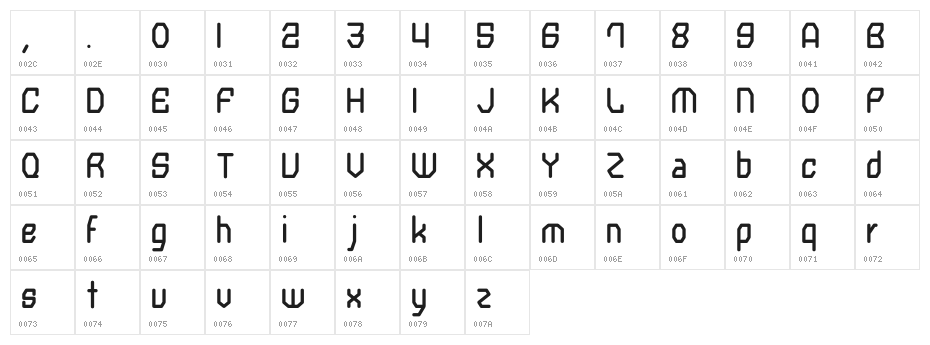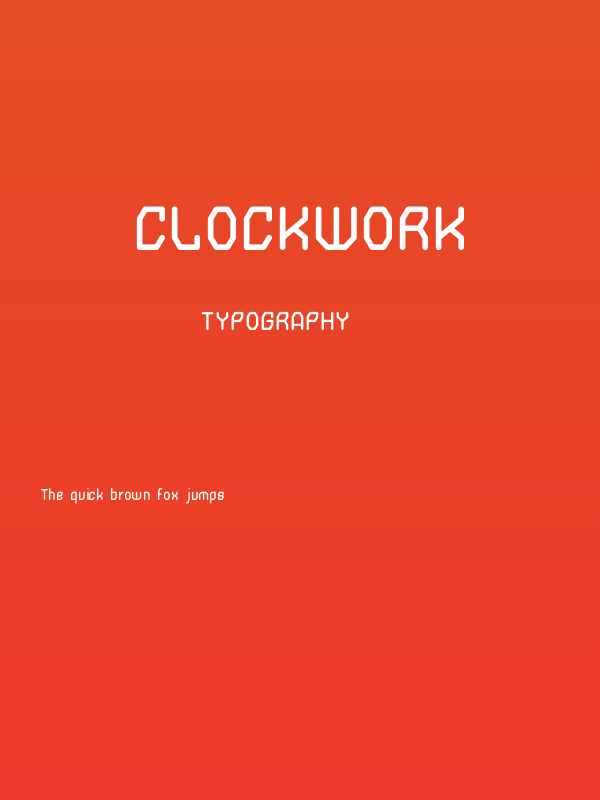
Clockwork Font
Clockwork Description
This font features a geometric and mechanical design, characterized by its bold and uniform stroke width. The characters are constructed with straight lines and sharp angles, giving it a futuristic and industrial appearance. The uppercase and lowercase letters maintain a consistent style, with rounded corners that soften the overall look. The numerals and special characters follow the same design principles, ensuring a cohesive appearance across all glyphs. The font's structure is clean and precise, making it suitable for modern and technical applications.